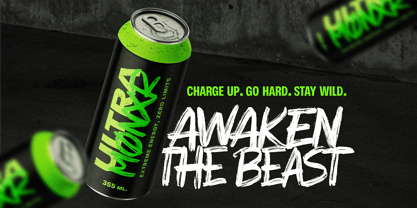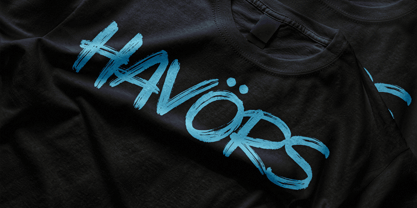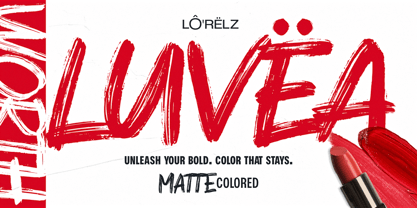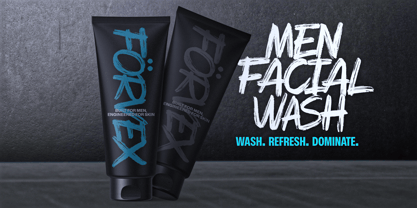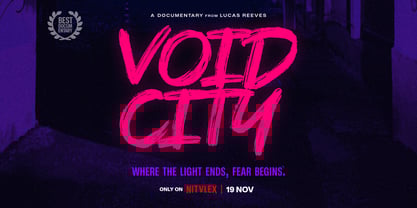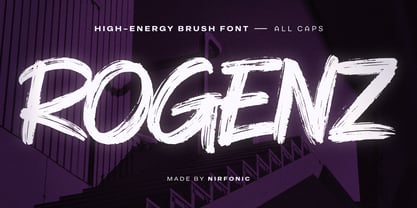
ROGENZ
Introducing ROGENZ, the fearless, high-energy brush font that refuses to be ignored. Built for brands that lead, disrupt, and dominate, ROGENZ embodies the raw power of handcrafted brush strokes—bold, untamed, and electrifying.
Born for the Streets. Engineered for Impact.
ROGENZ is more than just typography—it’s a statement of rebellion, crafted for creatives who dare to stand out. Whether you’re designing streetwear branding, gaming visuals, or extreme sports campaigns, this font is your secret weapon for unmissable designs.
Perfect for:
• Streetwear & Urban Branding → Elevate your apparel, logos & merch with raw street-style energy.
• Esports & Gaming → Make your gaming brand, YouTube thumbnails & tournament posters explode with intensity.
• Extreme Sports & Adventure → Capture the spirit of speed, adrenaline, and fearless performance.
• Entertainment → Event posters & film/movie titles with grunge aesthetics.
• Cosmetics & Alternative Beauty → Ideal for bold lipstick, edgy skincare & rebellious beauty campaigns.
Why ROGENZ?
• Electrifying Brush Strokes – A handcrafted fusion of raw power & authentic texture.
• Bold Yet Legible – Striking typography that remains clear & impactful in every size.
• High Versatility – Dominates across fashion, gaming, entertainment, and branding.
• Designed to Sell – A proven attention-grabber for brands looking to convert views into action.
• 100% Original & Unique – No two strokes are alike—ROGENZ is one of a kind.
Fearless. Bold. Unstoppable.
If your brand isn’t afraid to break the rules, ROGENZ is the only font that speaks your language.
Industries:
• Streetwear & Urban Branding
• Esports & Gaming
• Extreme Sports & Adventure
• Entertainment & Film Titles
• Cosmetics & Beauty Rebels
Unique Selling Points (USP):
✔ Handcrafted, high-energy brush strokes for a wild, rebellious, and fearless impact.
✔ Striking versatility—from gaming & streetwear to action-packed event posters.
✔ Unapologetically bold—delivers maximum impact without sacrificing readability.
✔ Built for next-gen branding—trendy, aggressive, and designed for high-performance creatives.
✔ Perfect for statement-making designs—because blending in is never an option.